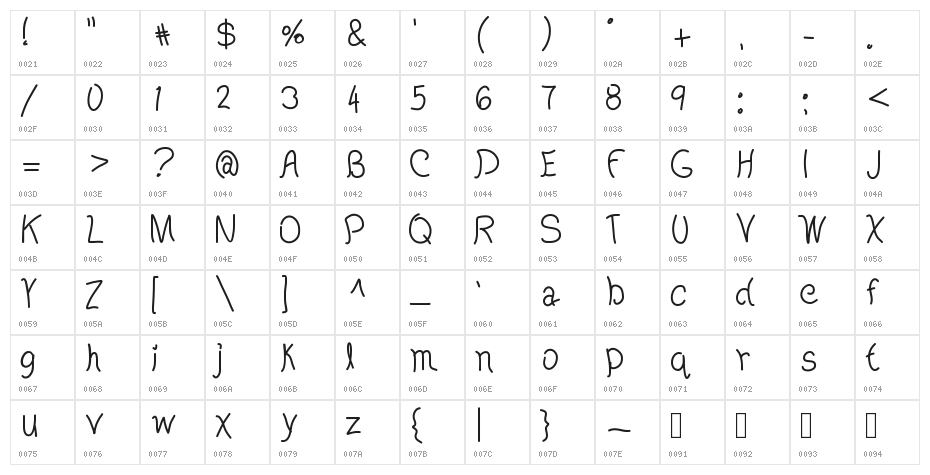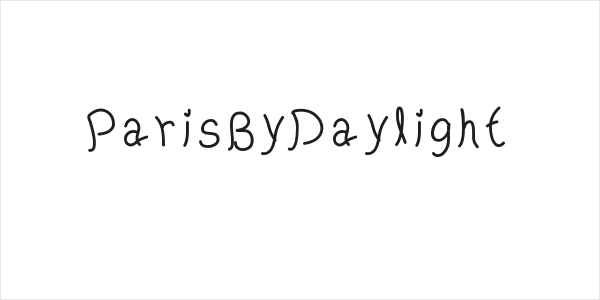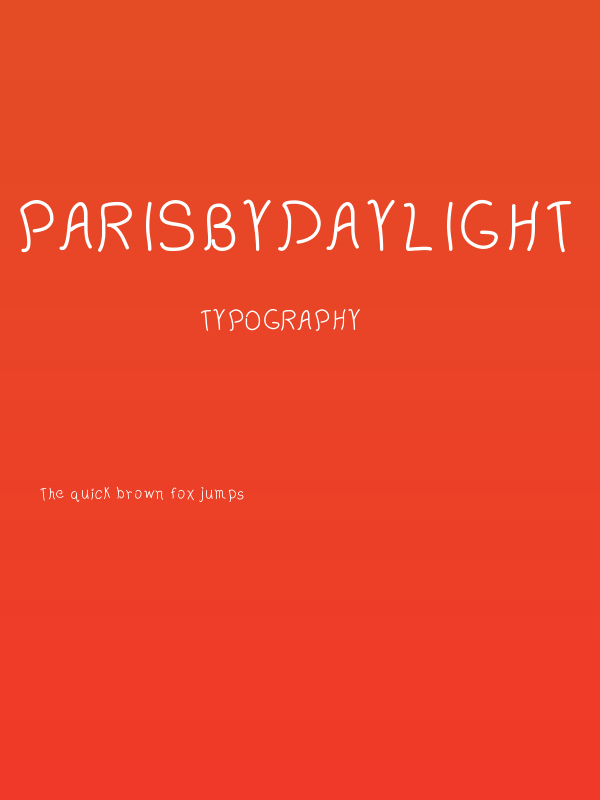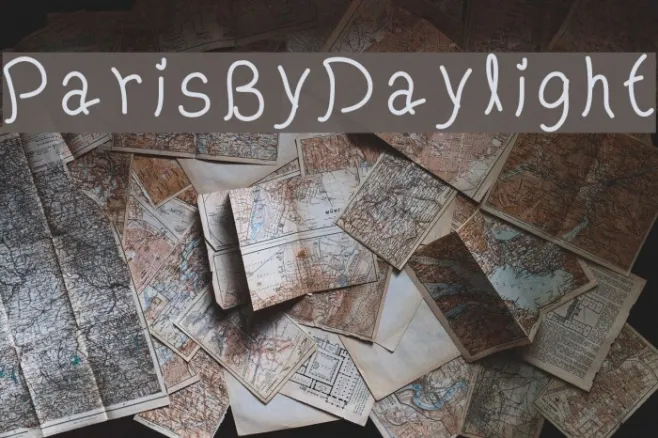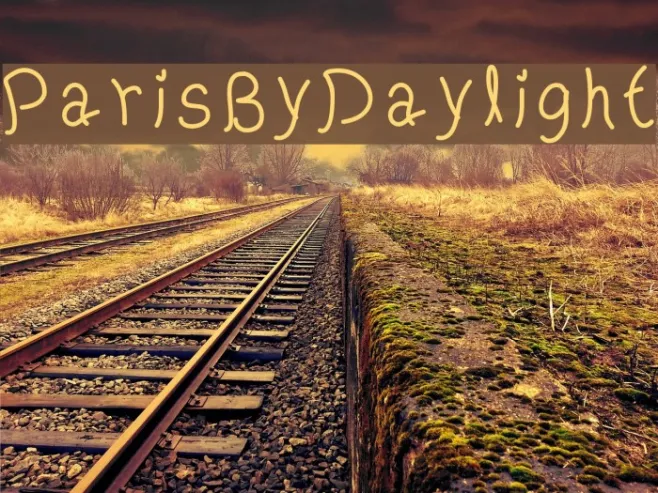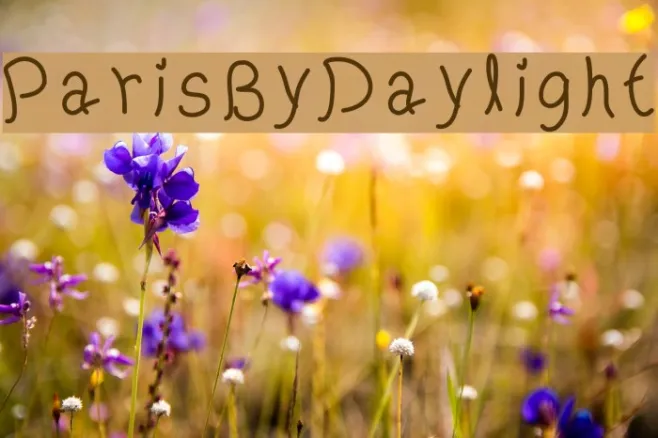
ParisByDaylight Font
ParisByDaylight Description
This font features a playful and whimsical style, characterized by its hand-drawn appearance. The letters have a casual, informal look with slight irregularities that add to its charm. The strokes are smooth and rounded, giving it a friendly and approachable feel. The uppercase and lowercase letters maintain a consistent style, with a slight slant that suggests movement and energy. The numbers and special characters are equally expressive, fitting seamlessly with the overall design. This font is perfect for projects that require a touch of personality and creativity.
PARISBYDAYLIGHT UPPERCASE
PARISBYDAYLIGHT LOWERCASE
PARISBYDAYLIGHT OTHER CHARS
| Proposed Projects | Ideal for children's books, greeting cards, playful branding, and creative posters. |